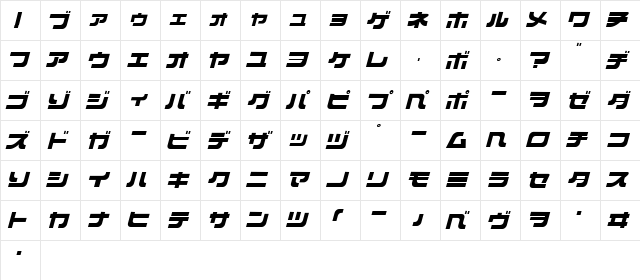
Complete Overloader Regular glyph index. Displaying only characters natively supported by Overloader Regular font.
Overloader is a composed and adaptable typeface that performs quietly and consistently across a wide range of design contexts.